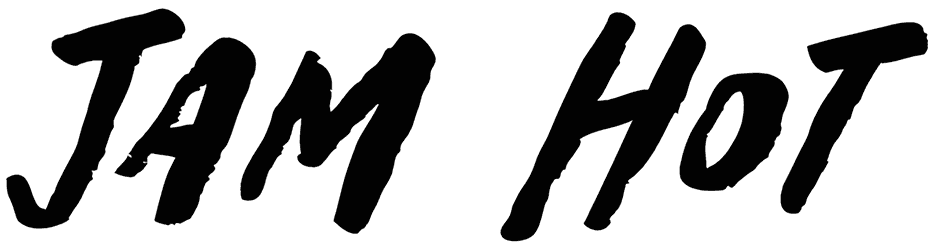
Jam Hot Font
Designed byBLKBK Fonts
A good font must be able to convey multiple complicated messages in the simplest possible form and in this regard, you can set up your posters, billboards, logos, or social media posts with the help of a reliable script font the same as Jam Hot. This all-caps brush font carries a feeling of personalization, delicacy, or idealism.